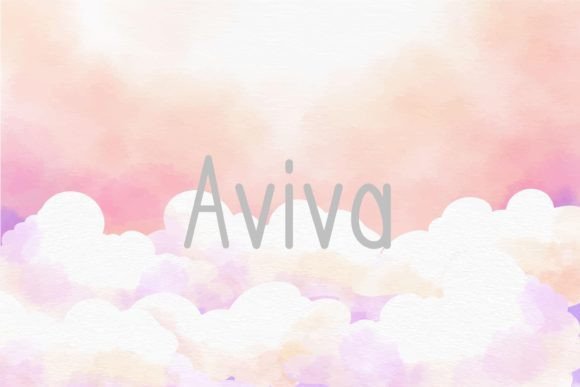
Introduction to Aviva Font
Aviva is a simple and friendly handwritten font.
Whimsical and a bit quirky, this font will brighten up each of your designs Add it confidently to your projects, and you will love the results.